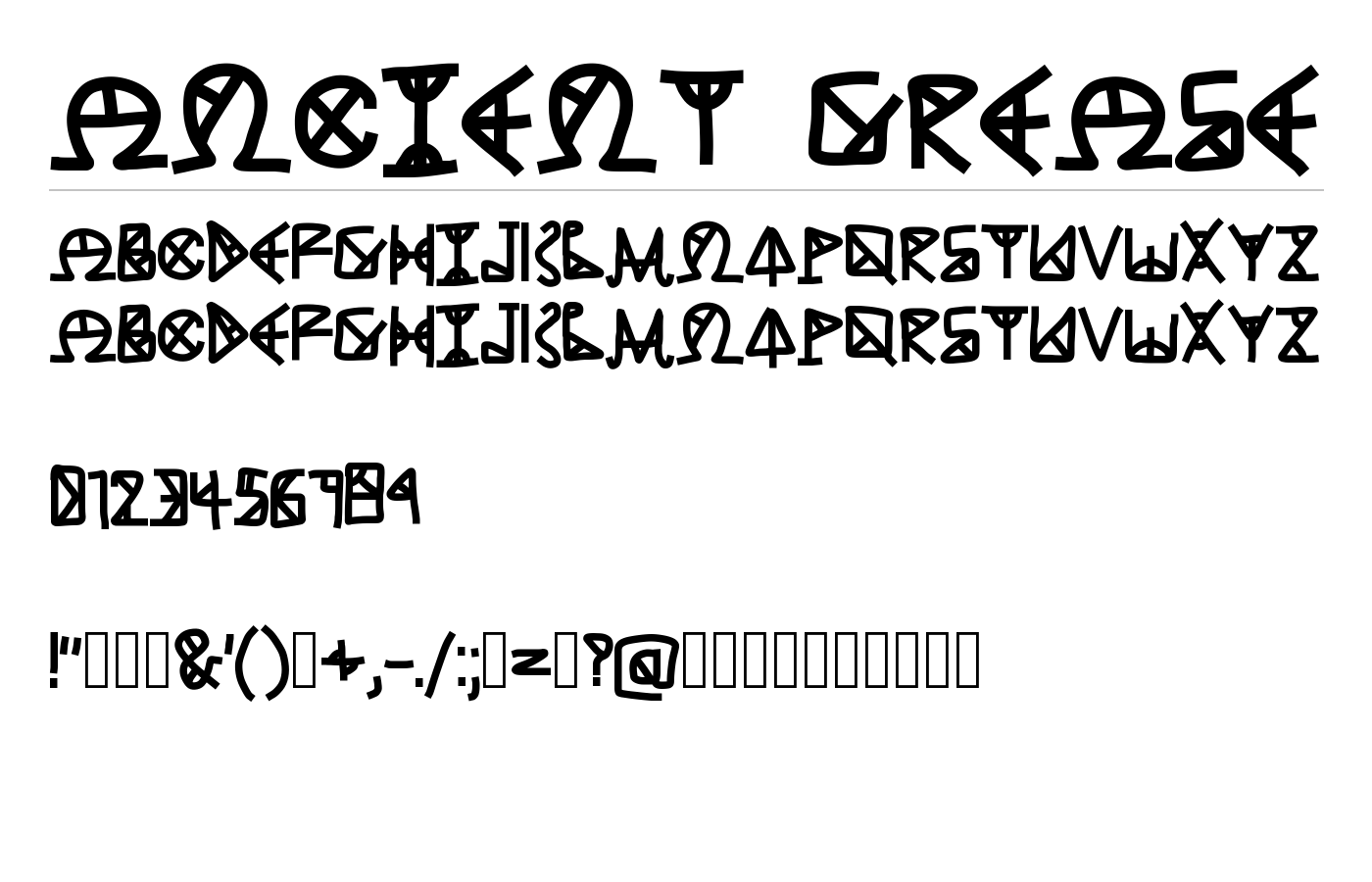
ANCIENT GREASE is a bold, decorative font with a unique, ancient-symbol-inspired design that blends geometric and abstract forms. Its strong, angular strokes and unusual shapes give it a mysterious and tribal character, making it ideal for creative projects seeking a bold, enigmatic, or historical vibe. This font works well in logos, posters, and themed branding where a striking, unconventional look is desired.
ANCIENT GREASE Font
About ANCIENT GREASE Font